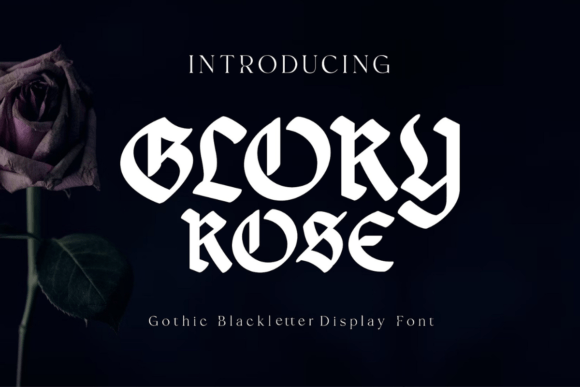
Prepare to be captivated by the essence of medieval aesthetics with Glory Rose, the enchanting Gothic blackletter display font. This remarkable creation by ajiwaluyo88 is a testament to the enduring allure of Old-World charm, reimagined for the modern age.
Enter a realm of mystery and intrigue as you explore the intricate details of Glory Rose. Its sharp edges and bold strokes evoke a sense of power and elegance, while its flowing curves add an air of grace and sophistication. Witness the harmonious blend of tradition and modernity as Glory Rose effortlessly enhances your creative projects.
Designers, rejoice! Glory Rose is your ultimate weapon in the quest for captivating typography. Its versatility knows no bounds, seamlessly adapting to a multitude of design applications. Craft striking posters that command attention, weave enchanting web designs that captivate visitors, and forge unforgettable brands that leave a lasting impression. Unleash your creativity and watch as Glory Rose transforms your vision into a reality.
Step into the spotlight and let Glory Rose elevate your illustrations to new heights. Its bold presence adds an air of intrigue to your artwork, drawing viewers into your imaginative world. Create badges and shirt designs that exude a timeless charm, leaving an indelible mark on those who encounter them.
With Glory Rose, the possibilities are endless. Its versatility extends far beyond the confines of traditional applications, inviting you to explore uncharted territories of design. Let your imagination soar, and allow Glory Rose to be your trusted companion on this extraordinary journey.